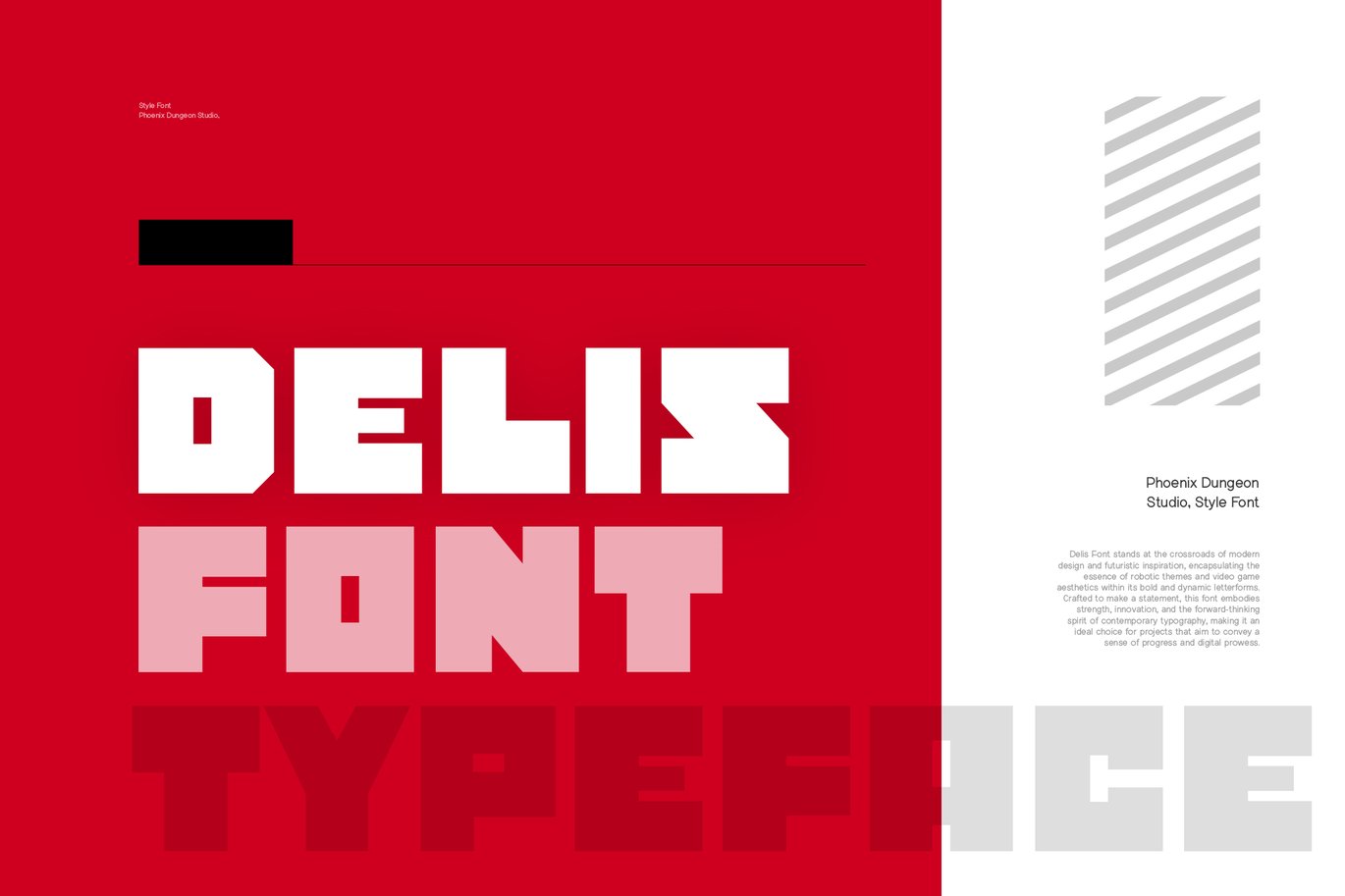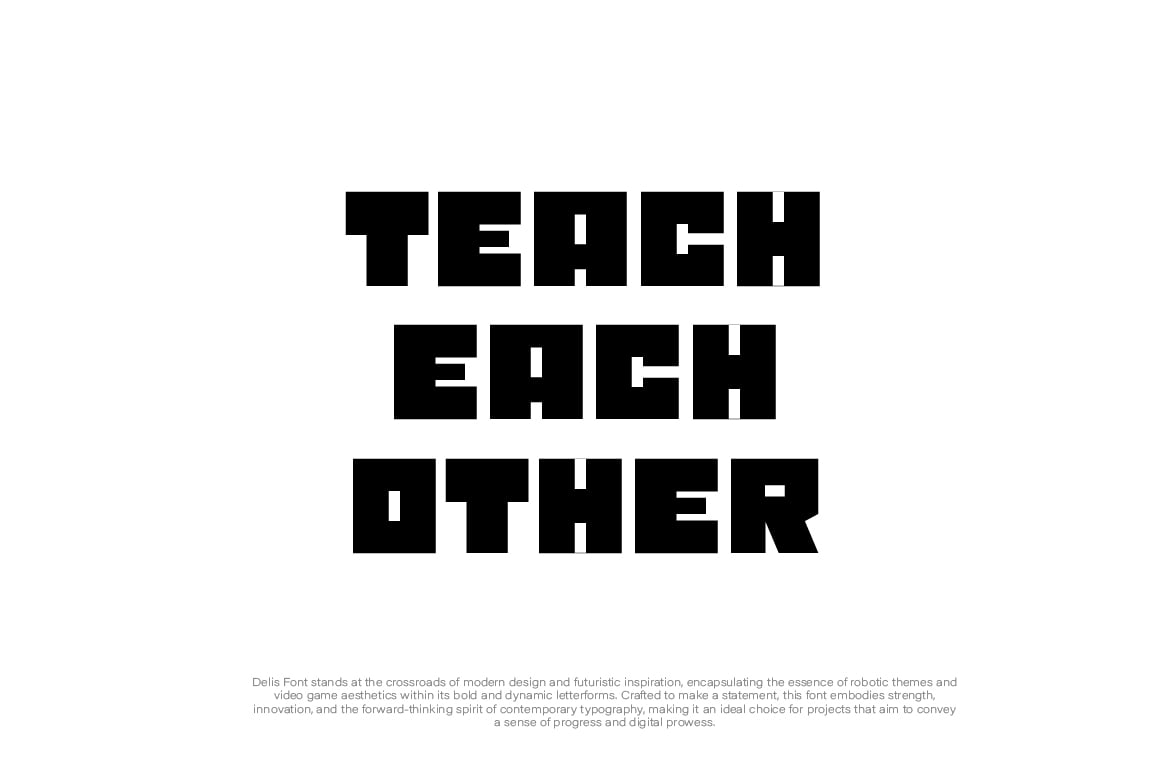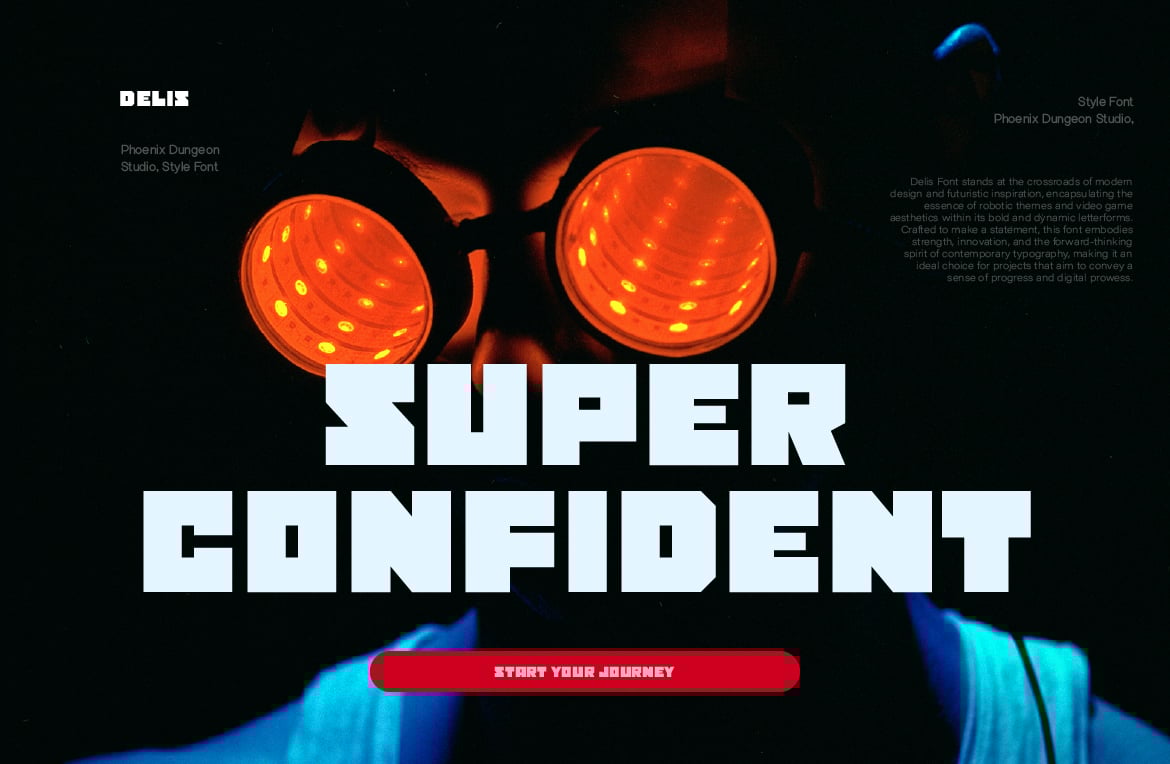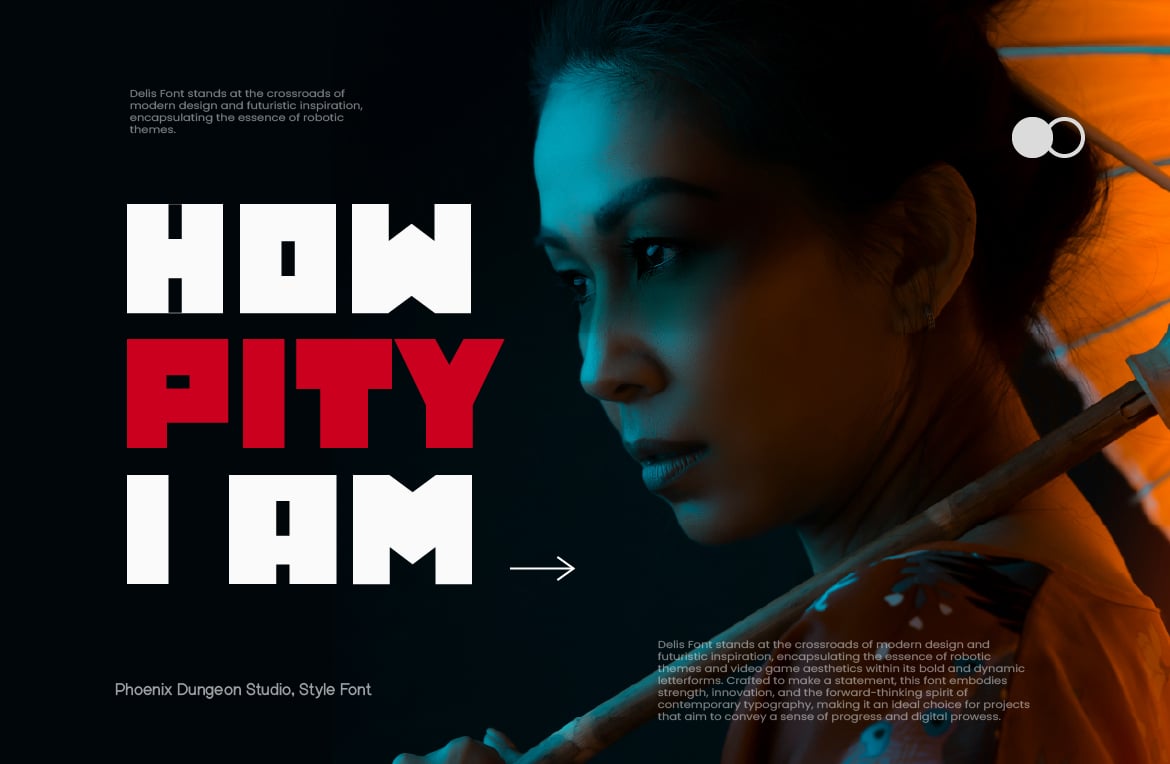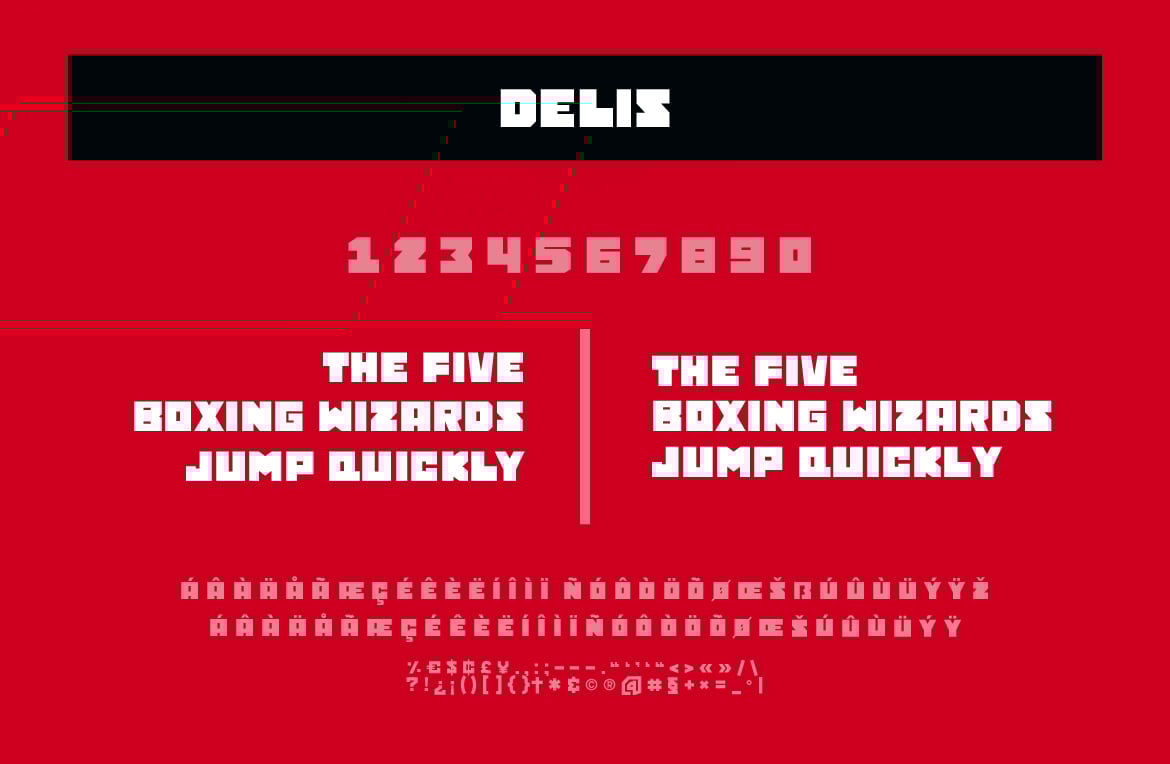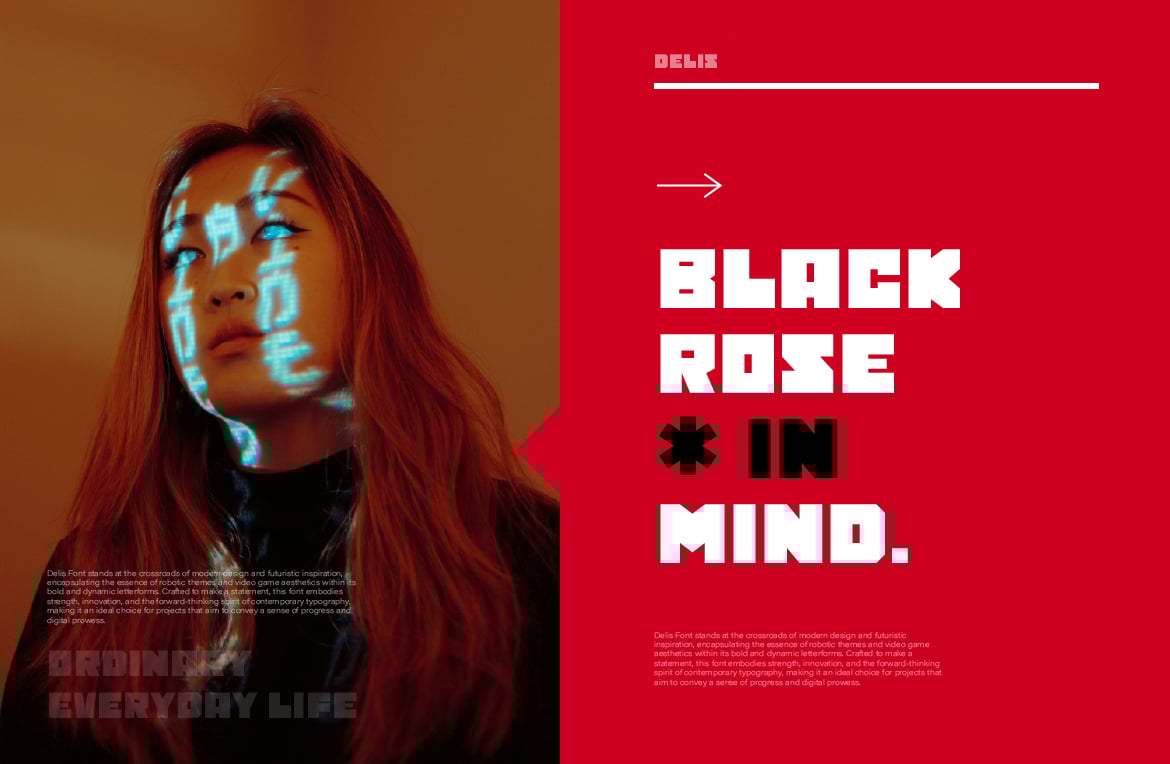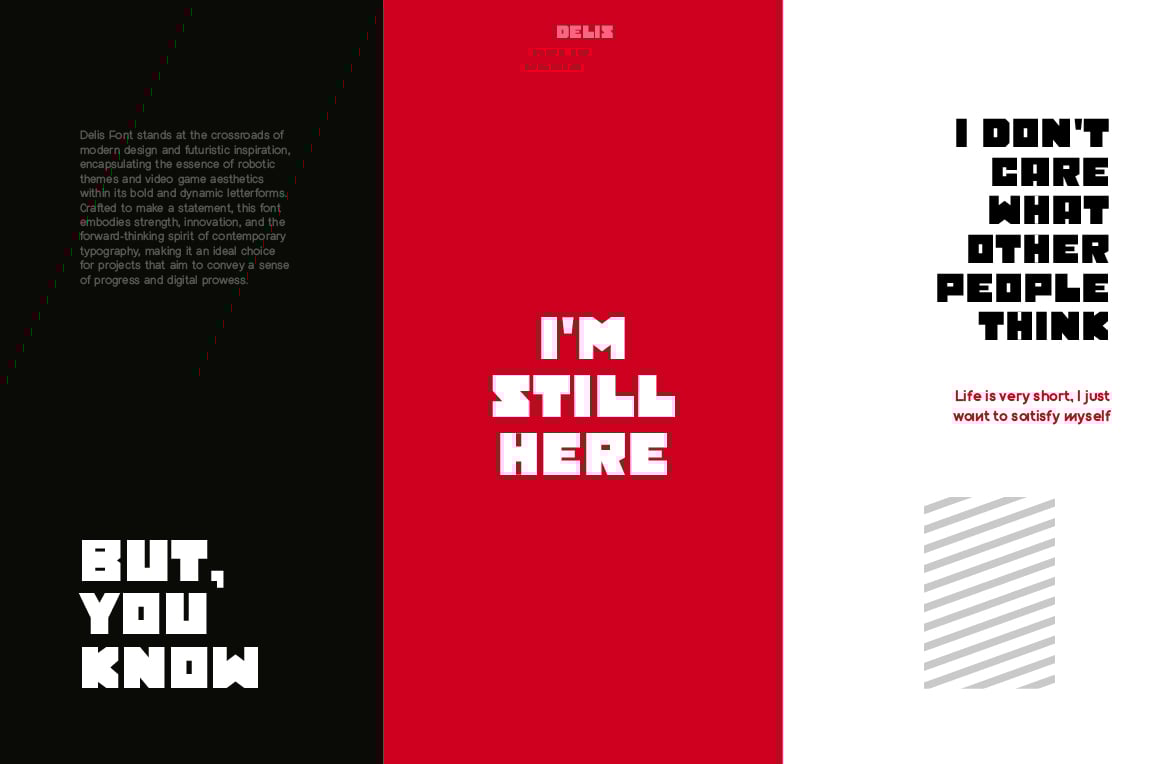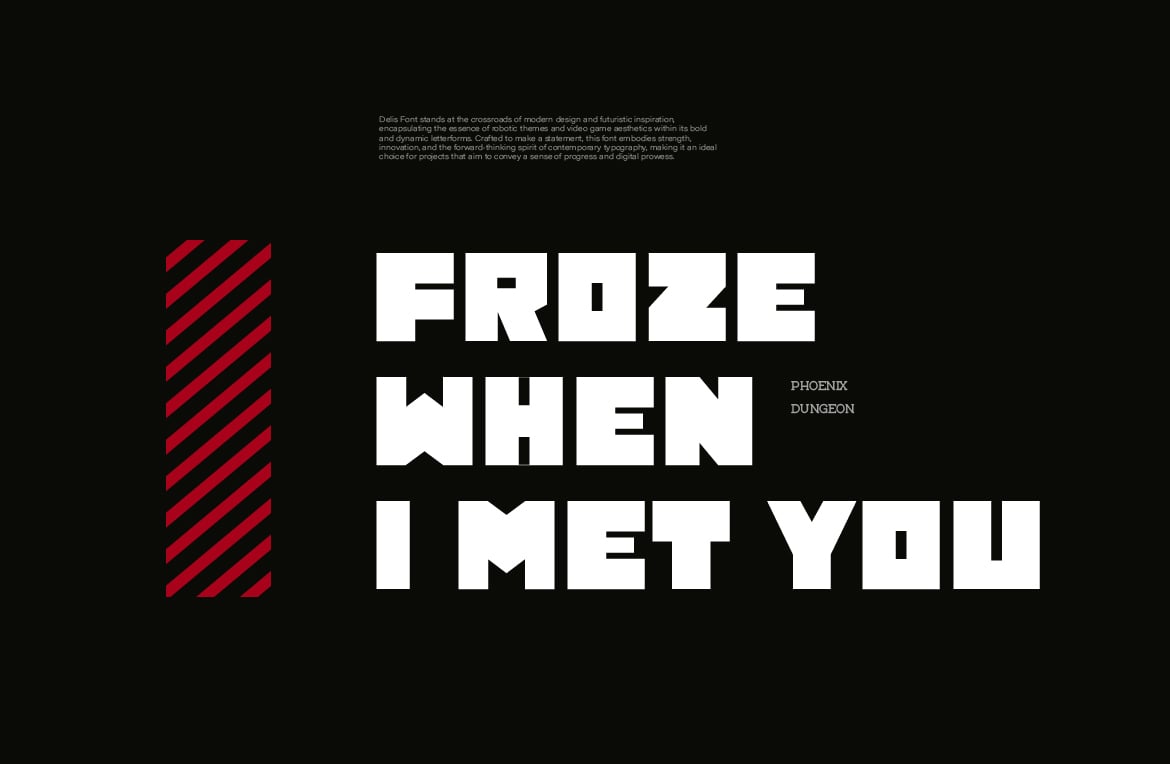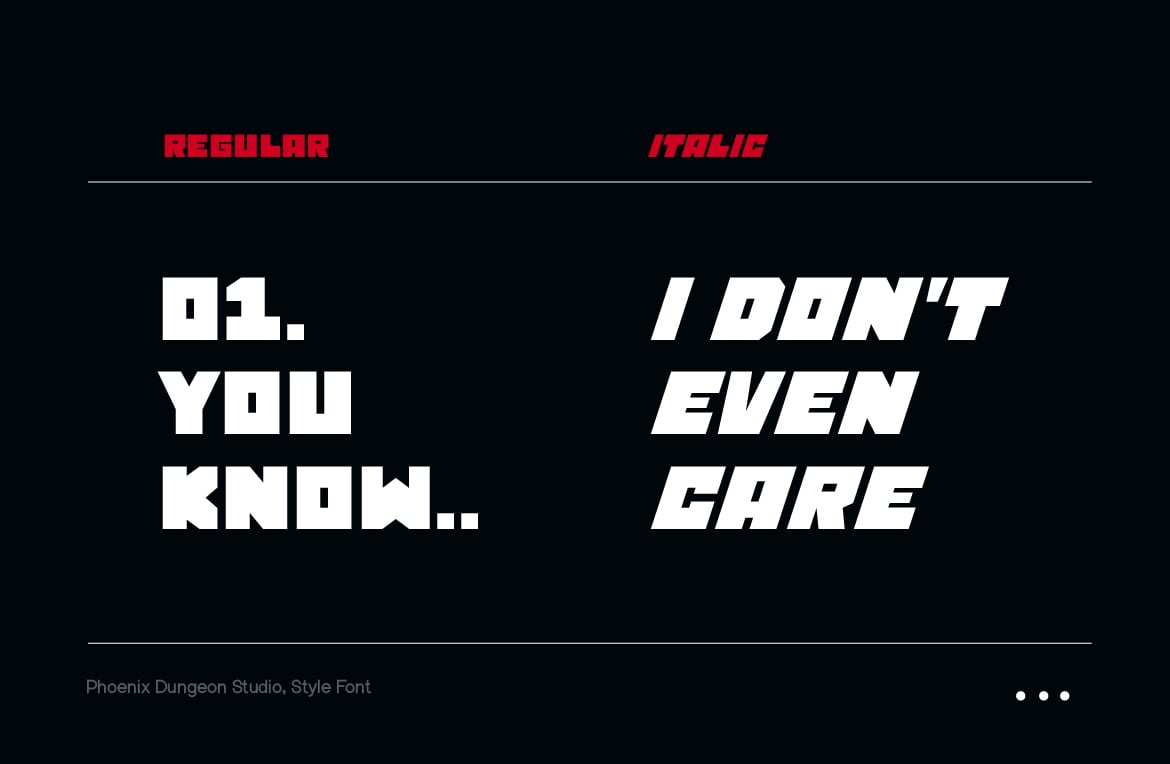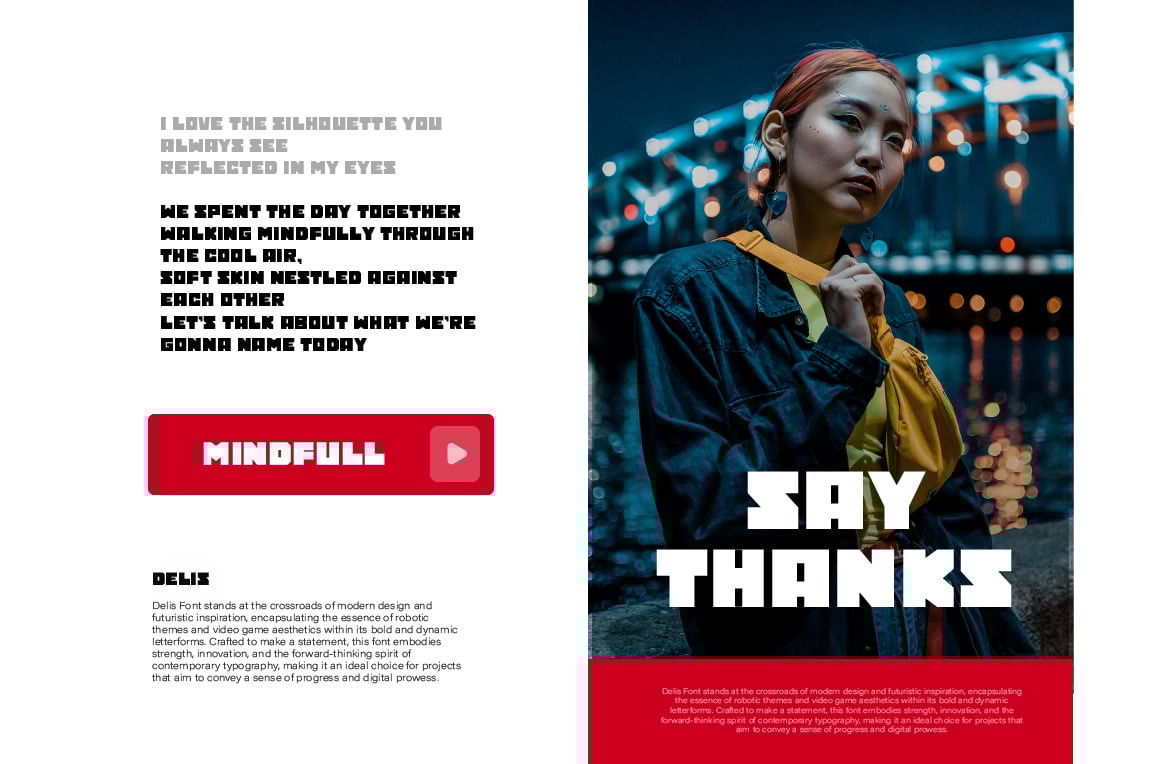
Delis Typeface
Delis Typeface stands at the crossroads of modern design and futuristic inspiration, encapsulating the essence of robotic themes and video game aesthetics within its bold and dynamic letterforms. Crafted to make a statement, this font embodies strength, innovation, and the forward-thinking spirit of contemporary typography, making it an ideal choice for projects that aim to convey a sense of progress and digital prowess.